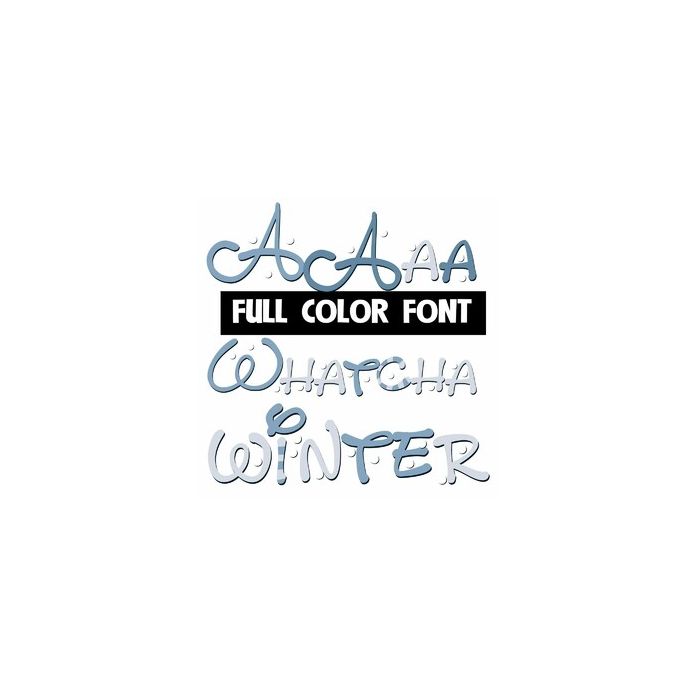
This full-color font features a cute, hand-written font in winter colors and snow throughout. There is a a full second set of lettering in the opposite colors that you can access through your system or Silhouette's glyph map.